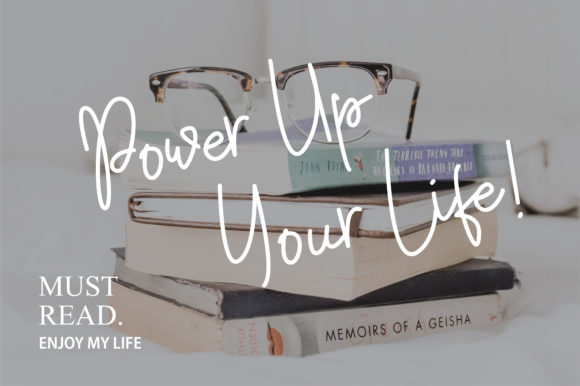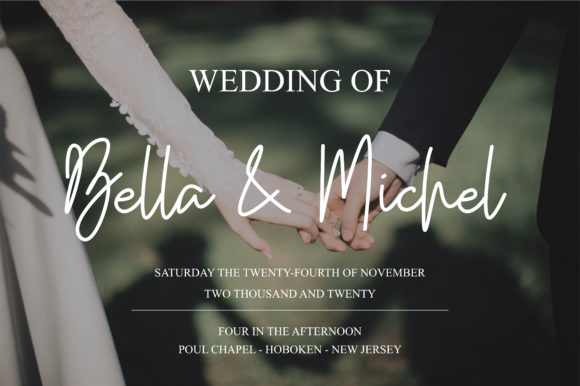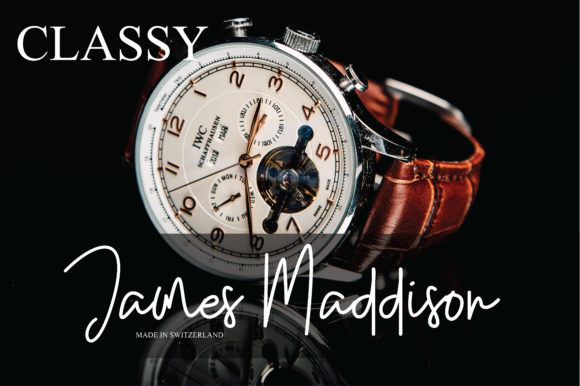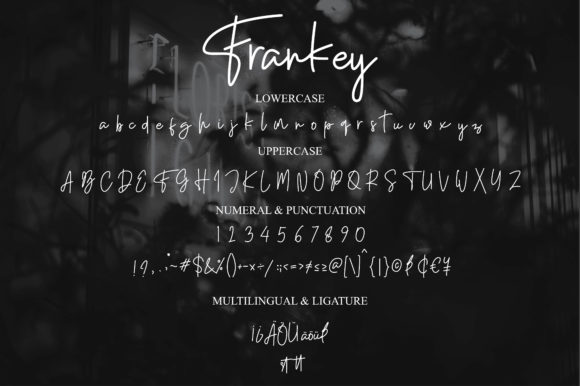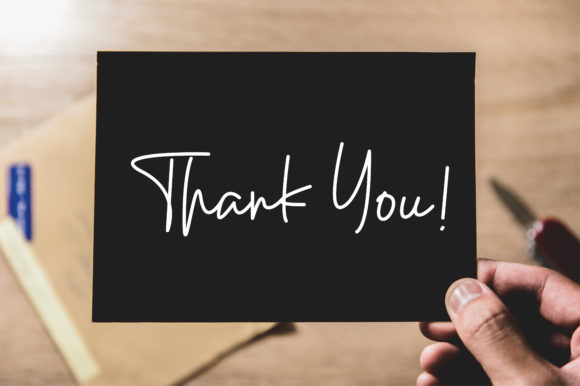
Introduction to Frankey Font
Frankey is a casual, down to earth and readable handwritten font.
It is suitable for any branding, product packaging, invitation, quote, t-shirt, label, poster, logo that you wish to develop .
Key Features of Frankey Font
Why Choose Frankey Font?
Frankey Font offers exceptional quality and versatility, making it a valuable addition to your design toolkit. Whether you’re creating for personal projects or commercial use, Frankey Font delivers professional results.